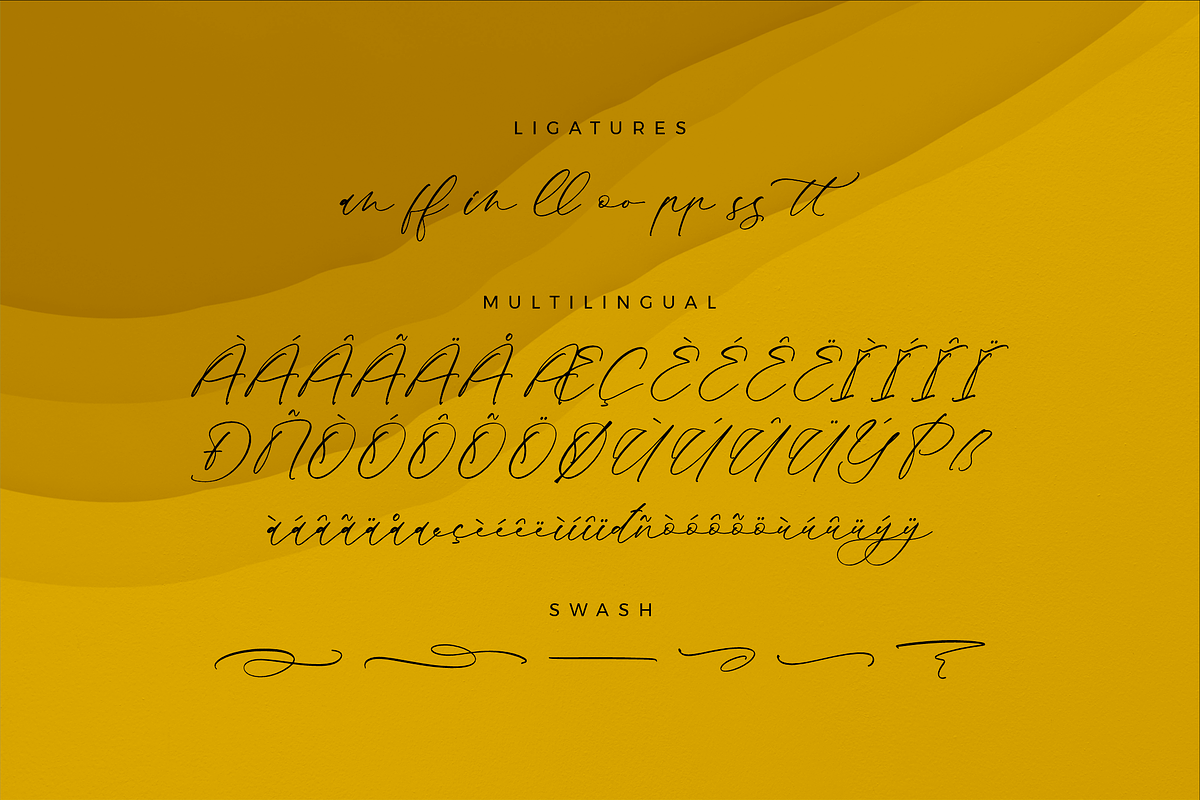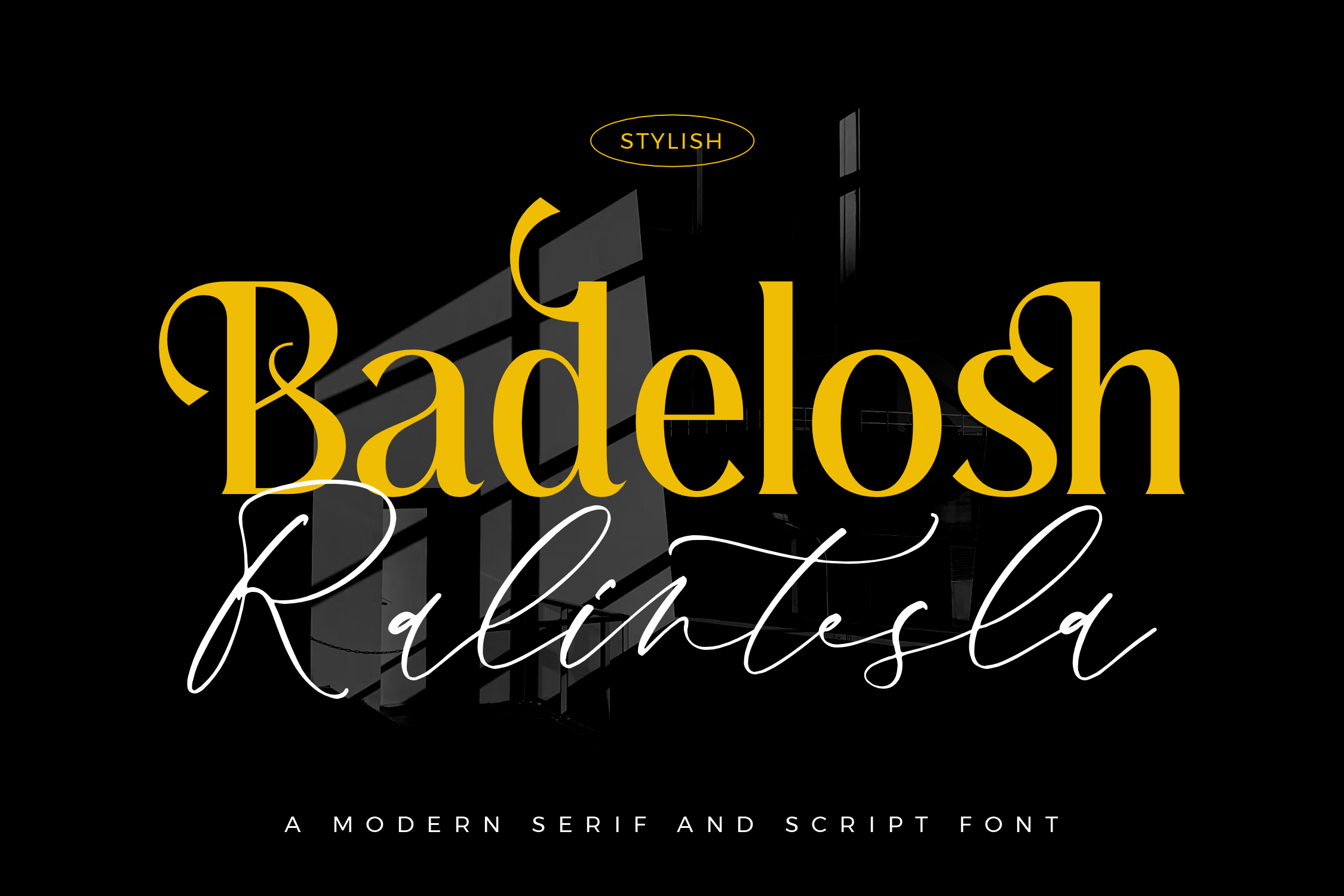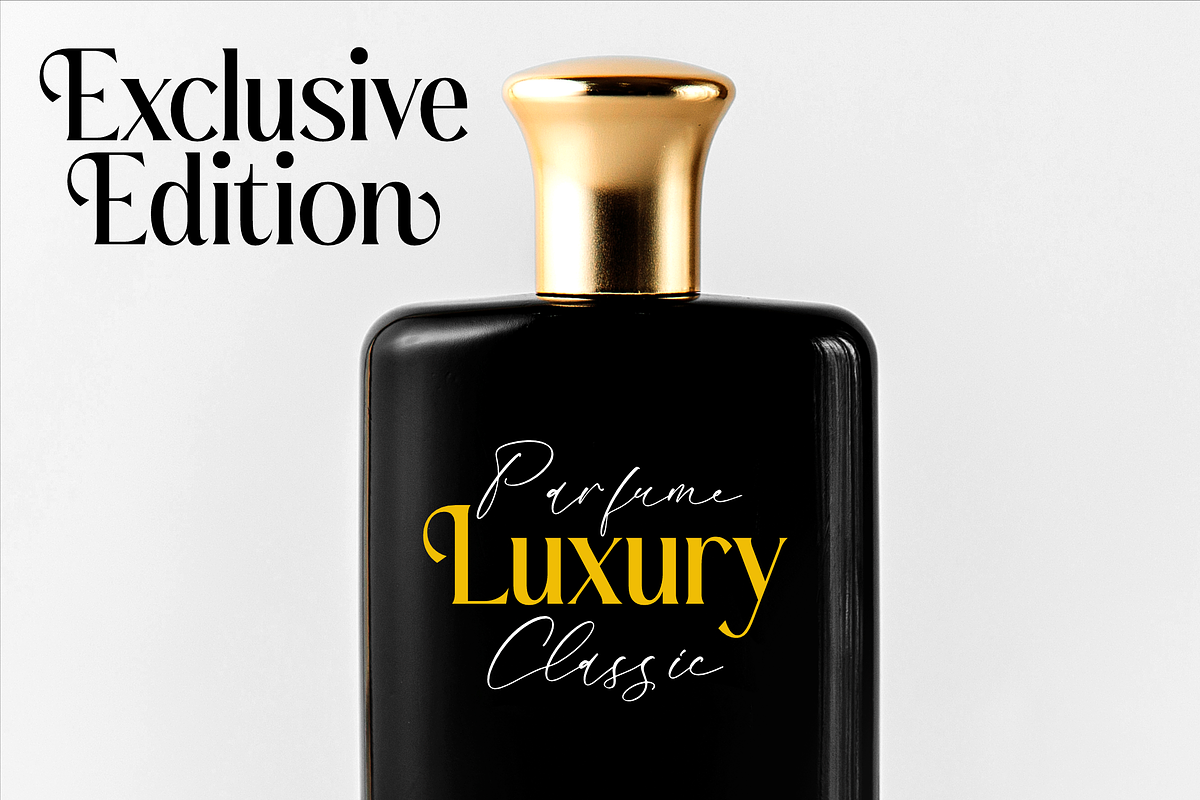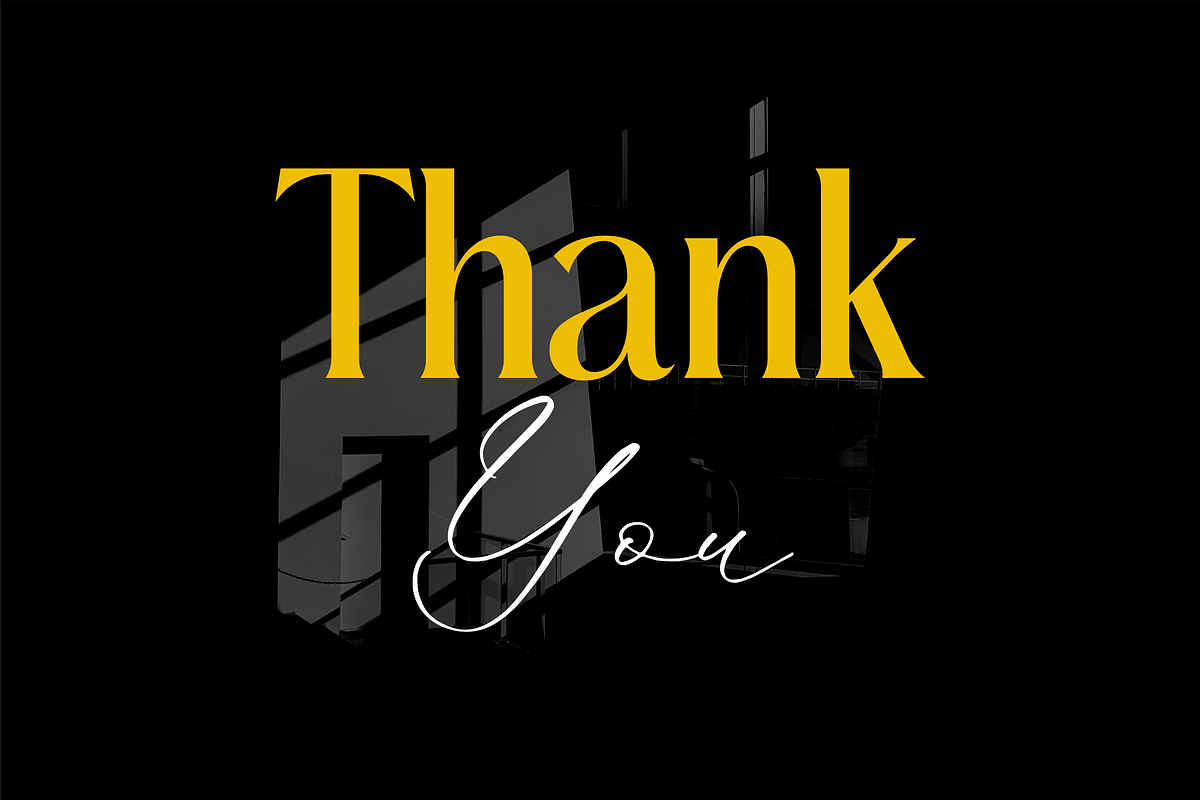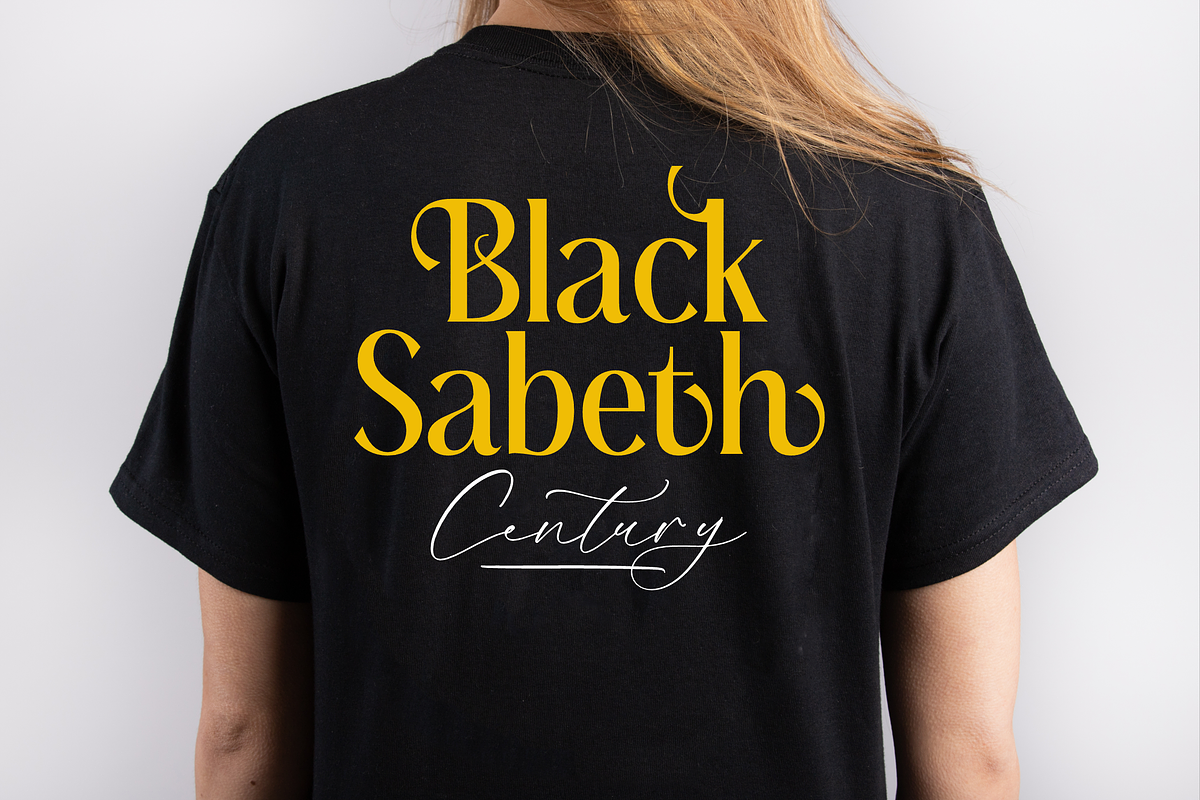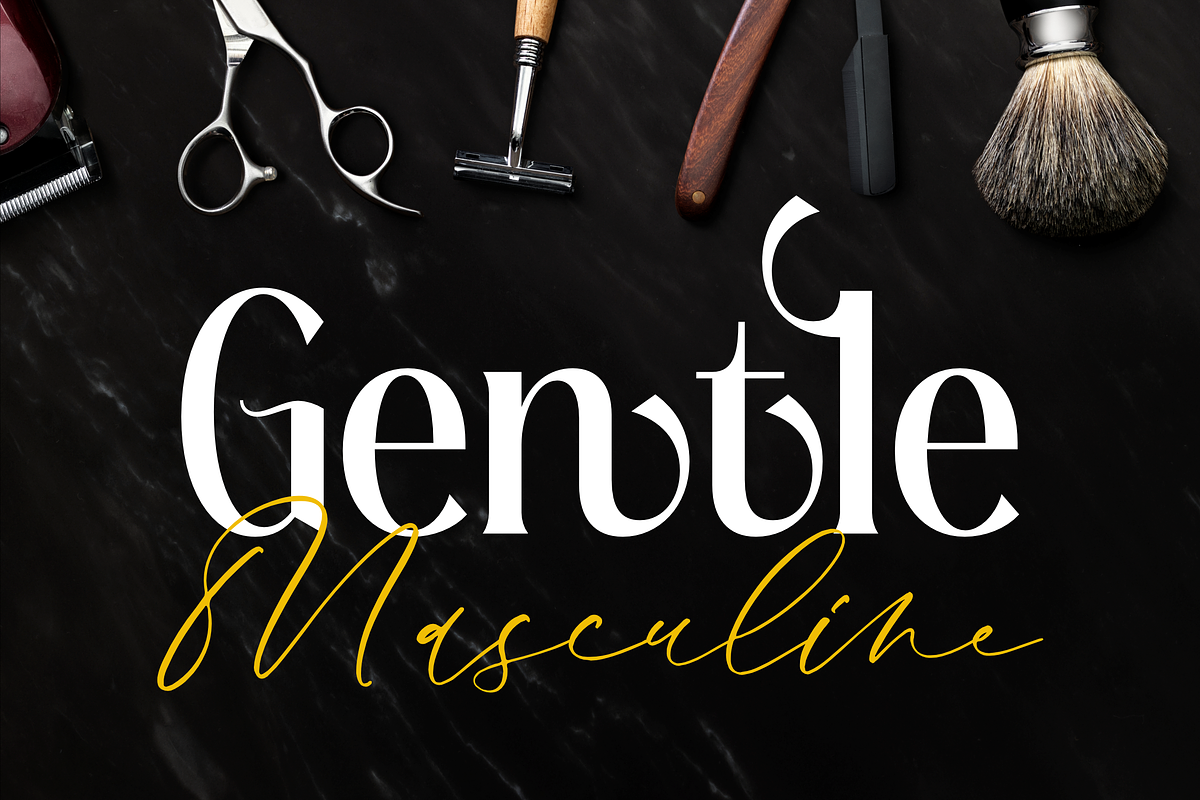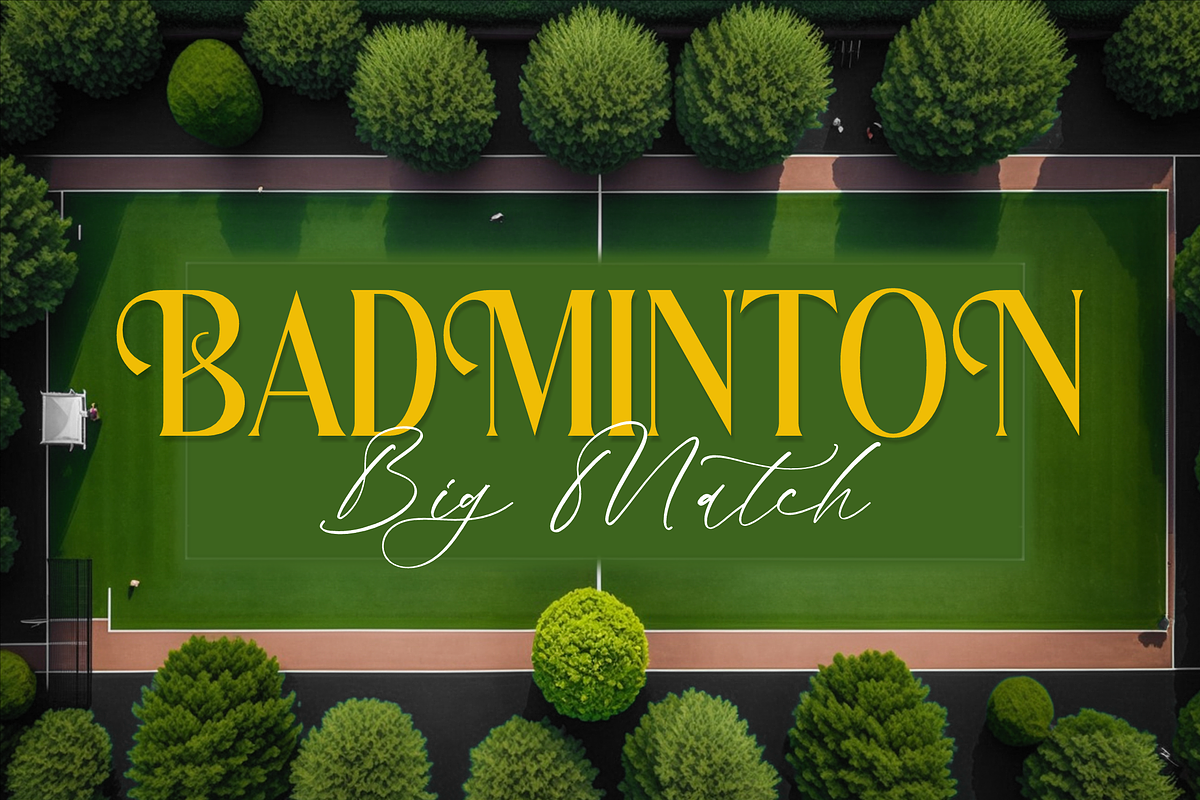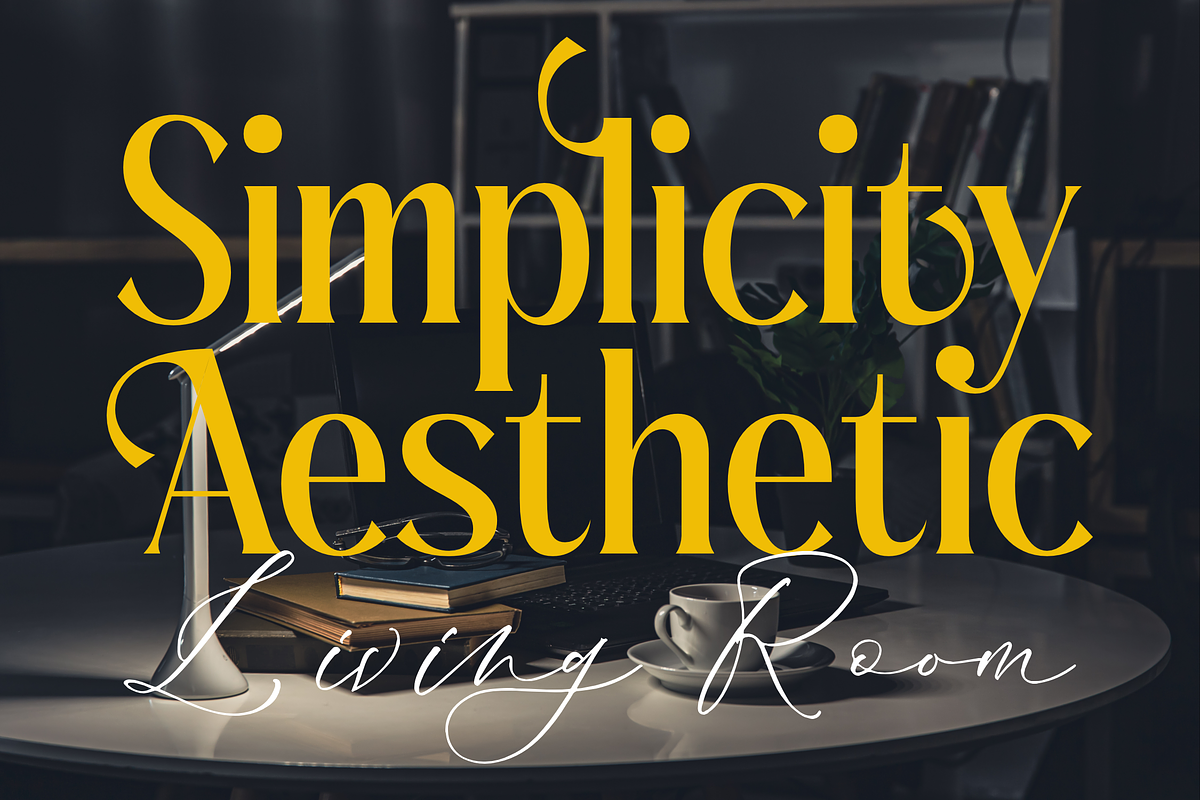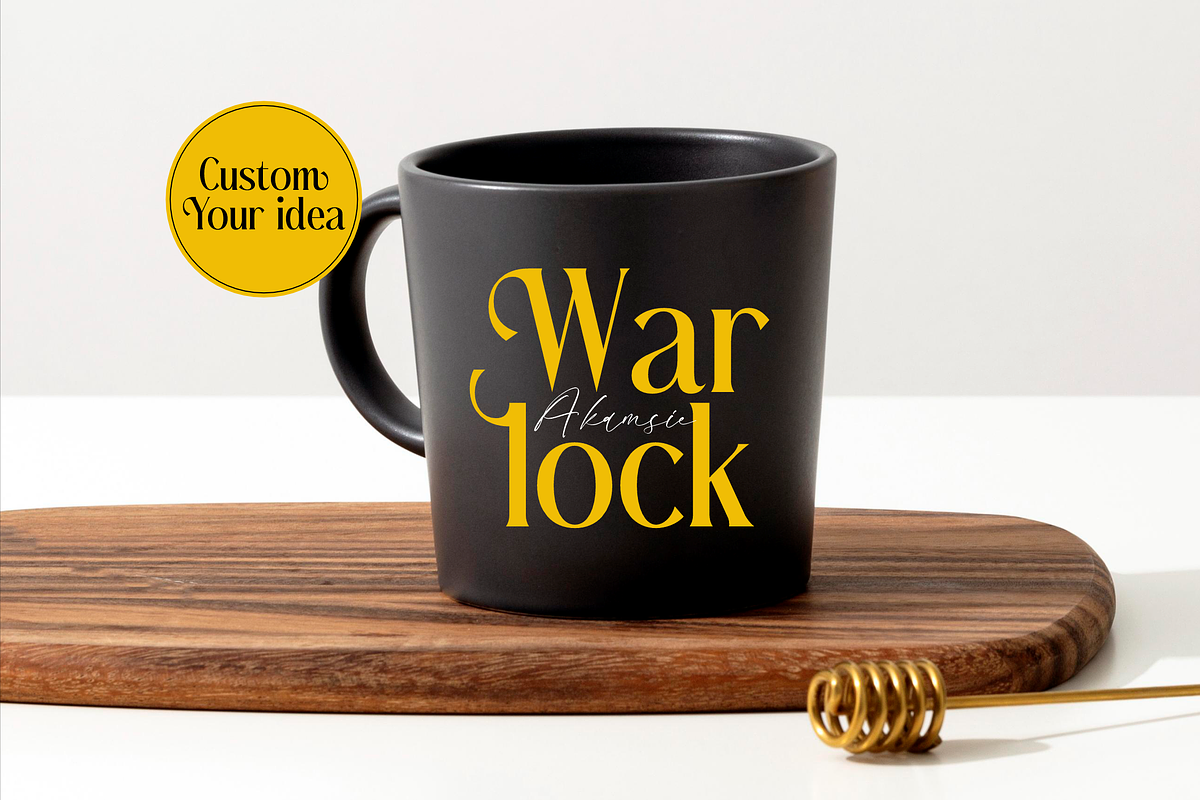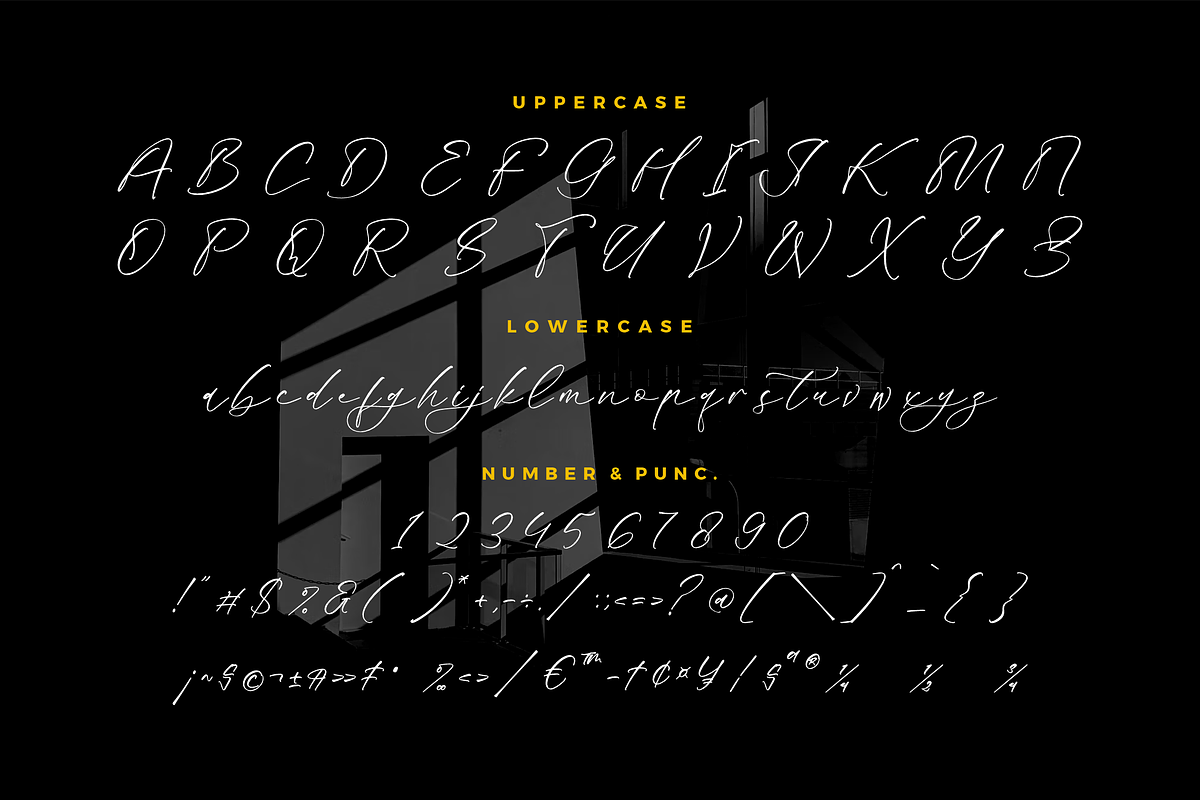
Badelosh Ralintesla Modern Font Duo
Proudly present Badelosh Ralintesla Font Duo , created by Storytype, A serif and script typeface that has own unique style & modern look. This typeface is perfect for an elegant & luxury logo, book or movie title design, fashion brand, magazine, clothes, lettering, quotes, and so much more.